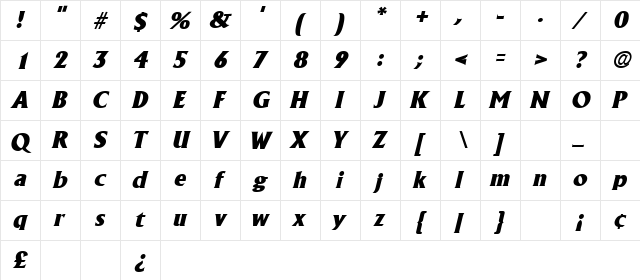
Alonse Oblique
Design Context for Alonse Typeface
Alonse is a composed and adaptable typeface that performs quietly and consistently across a wide range of design contexts. The dynamic lean of this cut emphasises speed and emphasis in any layout.
Pro Tip: Use Alonse for emphasis, pull quotes, and subheadings where its slanted energy can add rhythm to the layout.